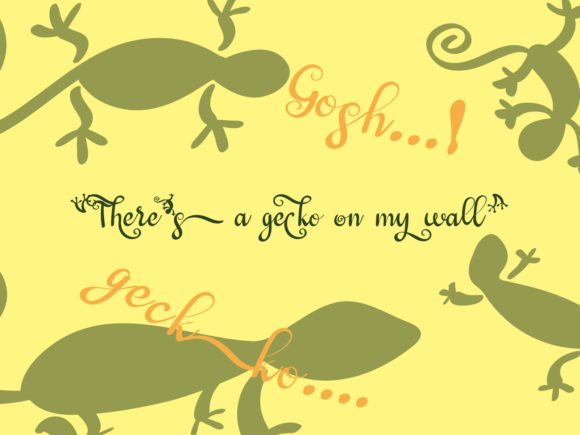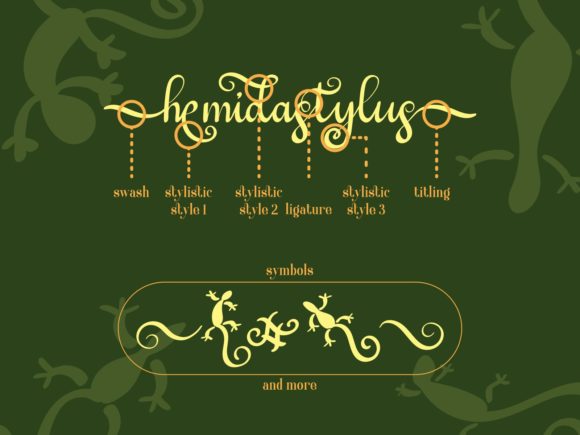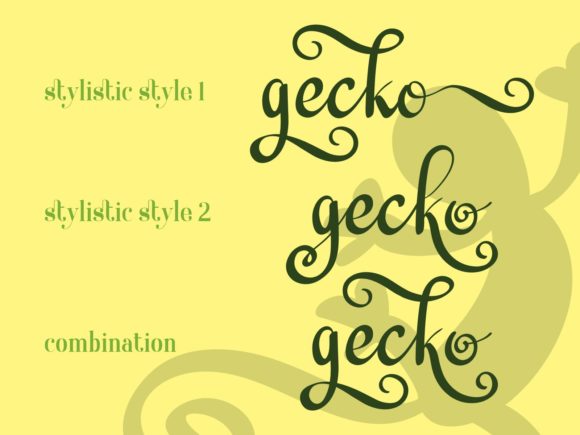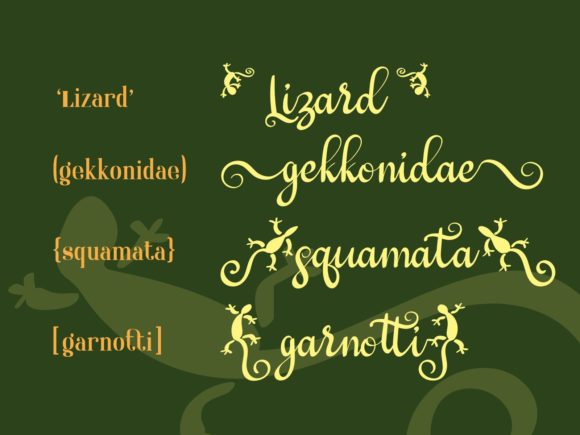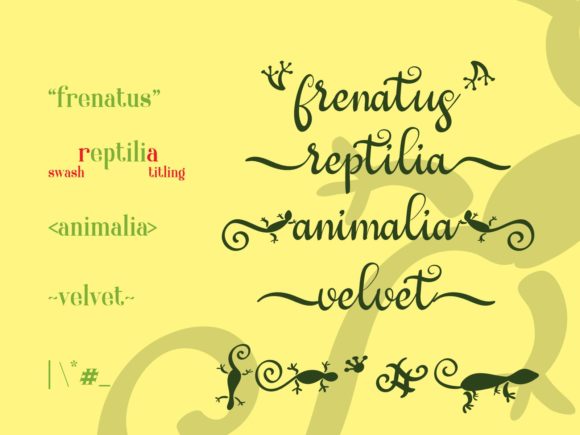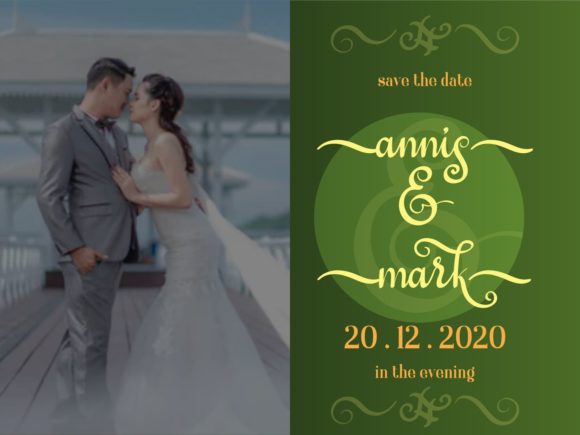
Geckotail Font: Elevate Your Designs with Elegance and Sophistication
In the world of typography, a well-crafted font can make all the difference in elevating your designs to new heights. Introducing Geckotail, a stunning decorative font that seamlessly blends classic calligraphic influences with a modern twist. This beautifully designed font is sure to capture your heart and become a favorite in your collection.
The Essence of Geckotail Font
Geckotail is a masterfully designed font that exudes elegance and sophistication. Its classy calligraphic roots are still evident, yet it feels refreshingly contemporary and modern. This unique blend makes it an ideal choice for designers and crafters looking to add a touch of luxury to their projects.
What Sets Geckotail Apart
• PUA Encoding: Geckotail font is PUA (Private Use Area) encoded, which means you can easily access all the glyphs and swashes. This feature allows for greater flexibility and creativity in your designs.
• Decorative and Versatile: This font is perfect for a wide range of projects, from wedding invitations and branding materials to digital content and craft projects.
• Contemporary yet Classic: Geckotail’s unique blend of modern and traditional elements makes it a versatile choice for various design applications.
Why Choose Geckotail Font?
With Geckotail, you can bring your projects to the highest levels with its:
• Elegant Calligraphic Style: Add a touch of sophistication and refinement to your designs.
• Fresh and Modern Feel: Keep your designs up-to-date and on-trend with Geckotail’s contemporary twist.
• Easy-to-Use Glyphs and Swashes: PUA encoding makes it simple to access and use the font’s various glyphs and swashes.
Geckotail font is an excellent choice for:
• Graphic Designers: Elevate your branding, advertising, and marketing materials with a sophisticated font.
• Crafters: Add a touch of elegance to your DIY projects, such as handmade cards, invitations, and scrapbooking.
• Digital Content Creators: Use Geckotail to create stunning digital content, including social media graphics, blog posts, and more.
Tips for Using Geckotail Font
To get the most out of Geckotail, consider the following tips:
• Pair with Neutral Backgrounds: Let Geckotail take center stage by pairing it with neutral backgrounds that won’t compete with the font’s elegance.
• Experiment with Glyphs and Swashes: Take advantage of PUA encoding to explore the font’s various glyphs and swashes, adding unique touches to your designs.
• Mix and Match with Other Fonts: Combine Geckotail with complementary fonts to create visually appealing and harmonious design compositions.
Geckotail font is a true gem in the world of typography. Its masterful blend of classic calligraphic influences and modern freshness makes it an excellent choice for designers and crafters looking to elevate their projects. With its PUA encoding, elegant style, and versatility, Geckotail is sure to become a favorite in your collection. So why wait? Fall in love with Geckotail and bring your designs to new heights!